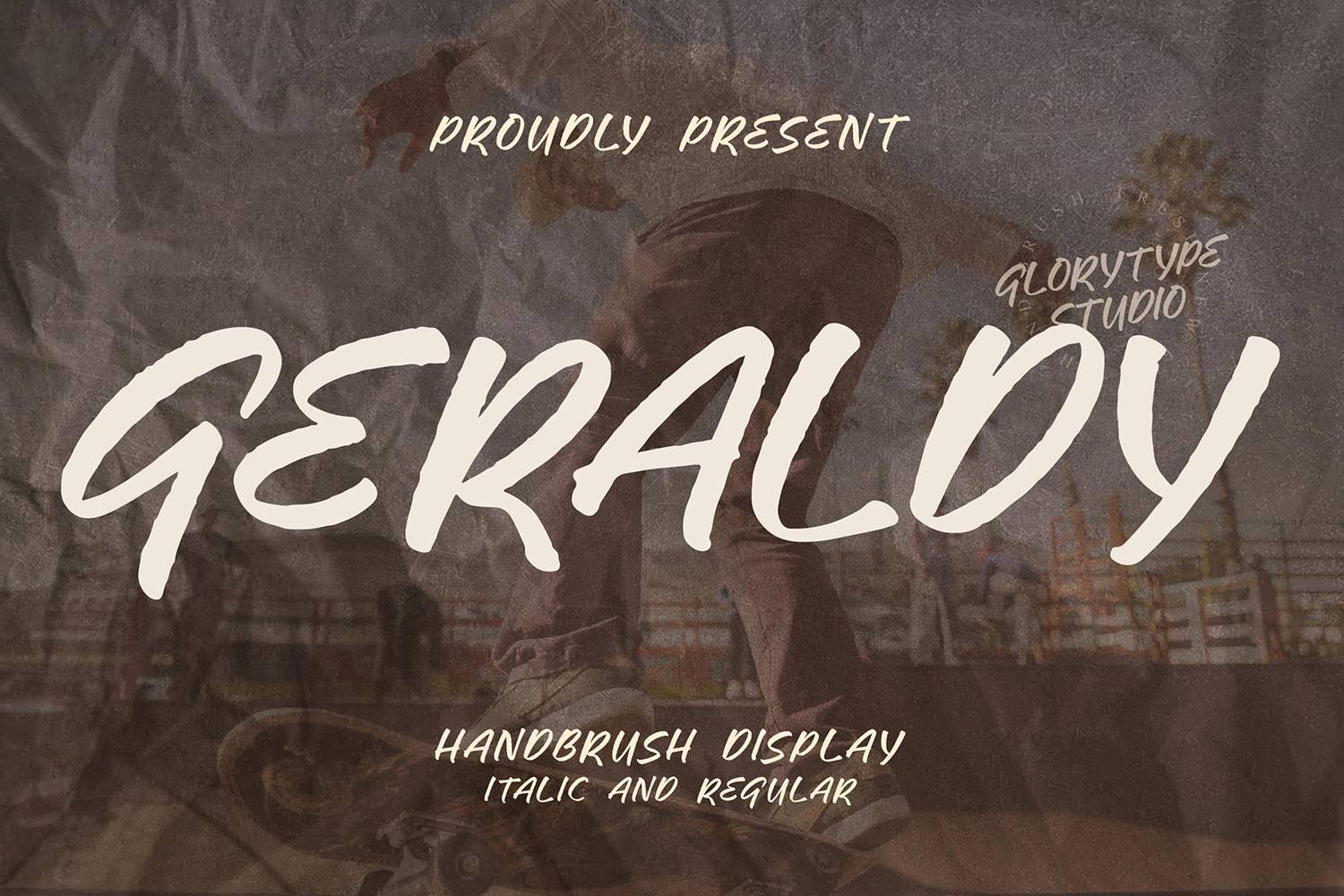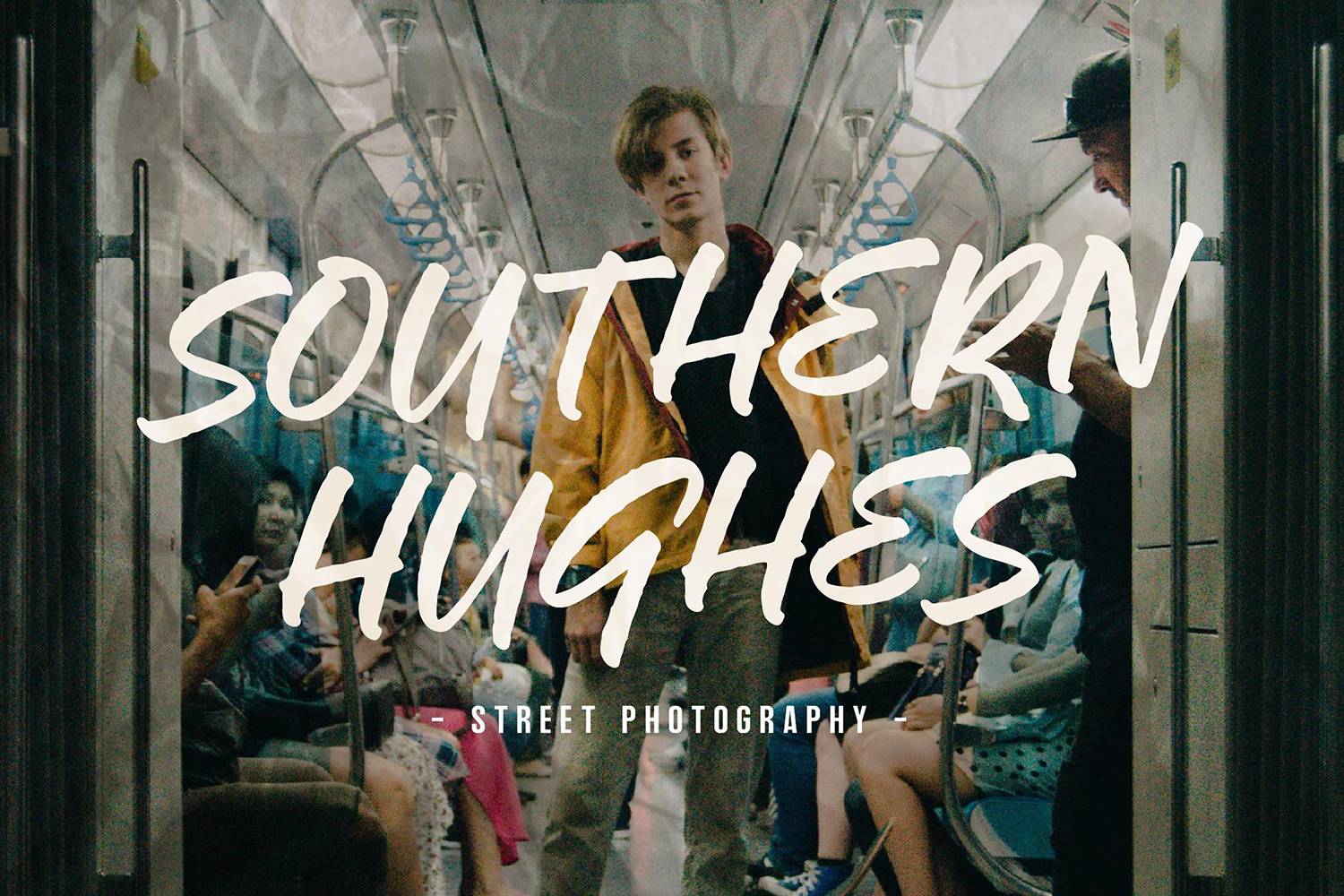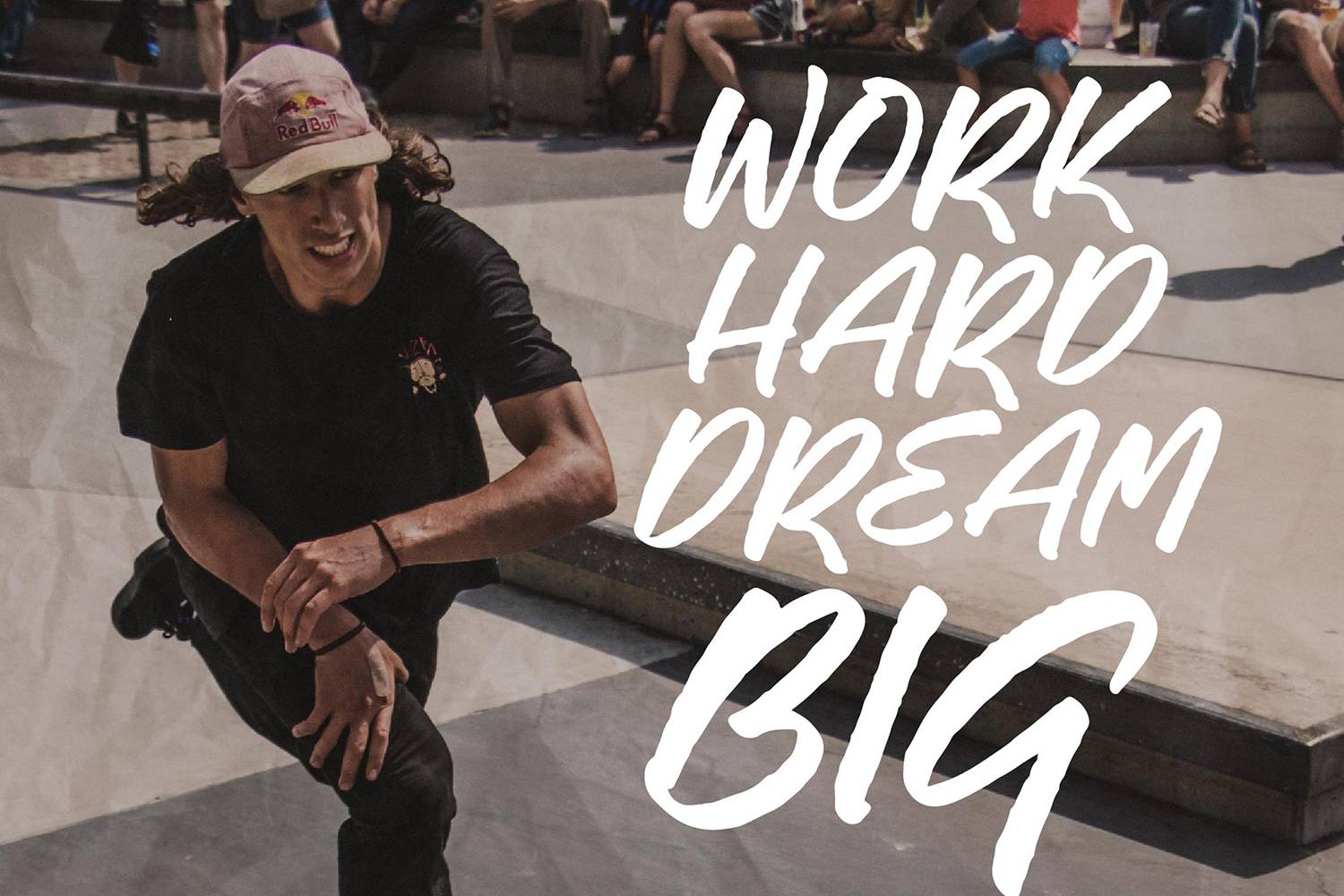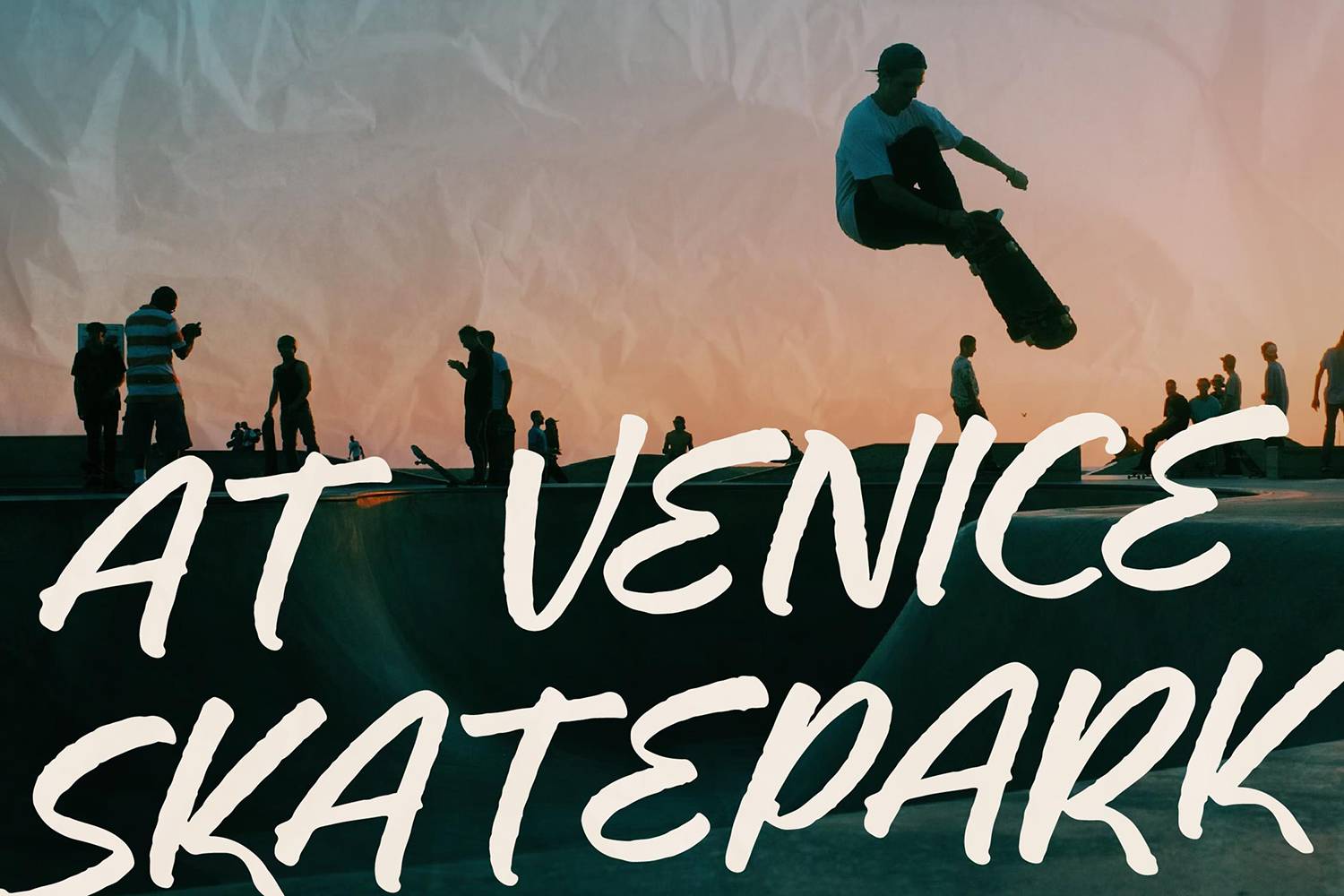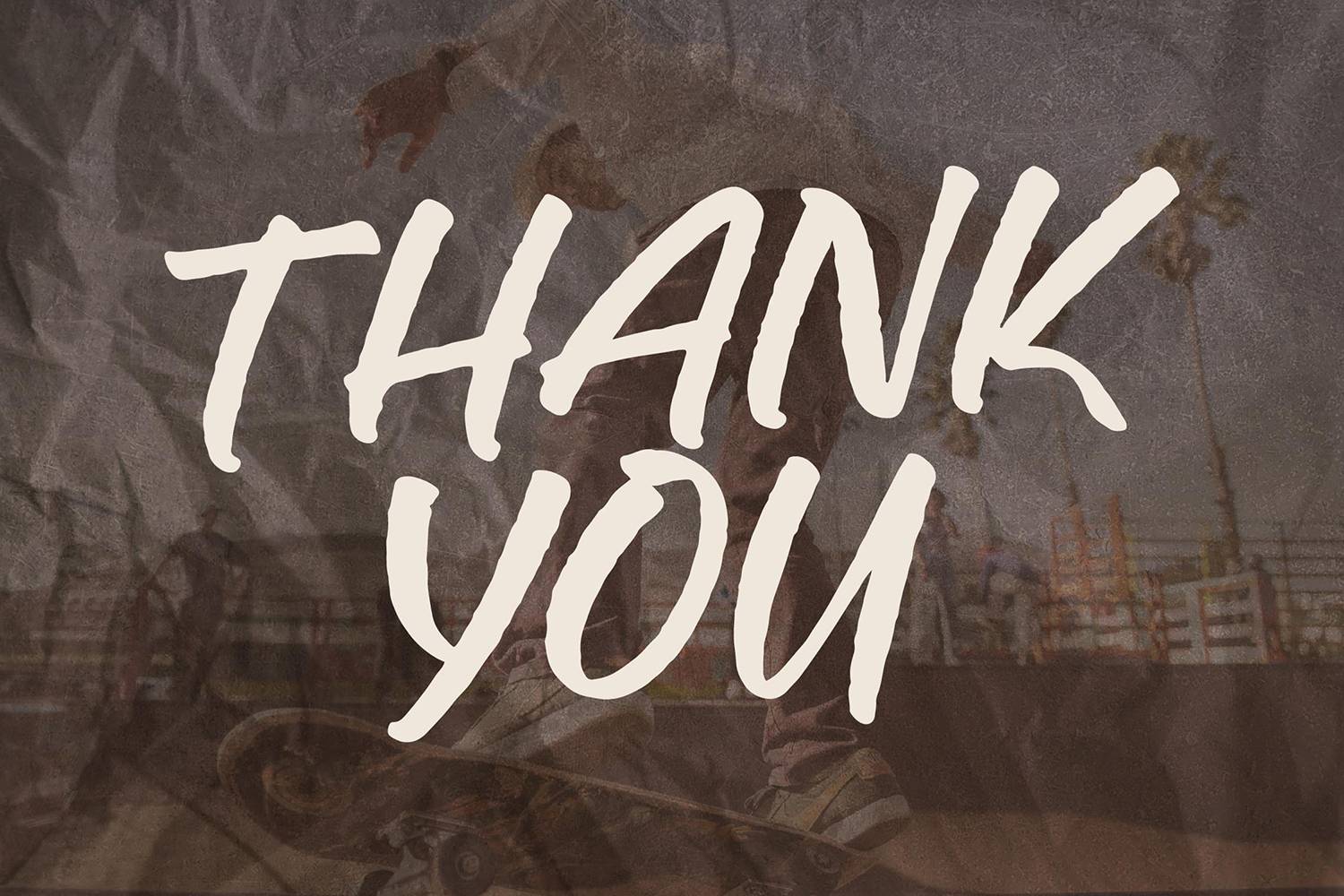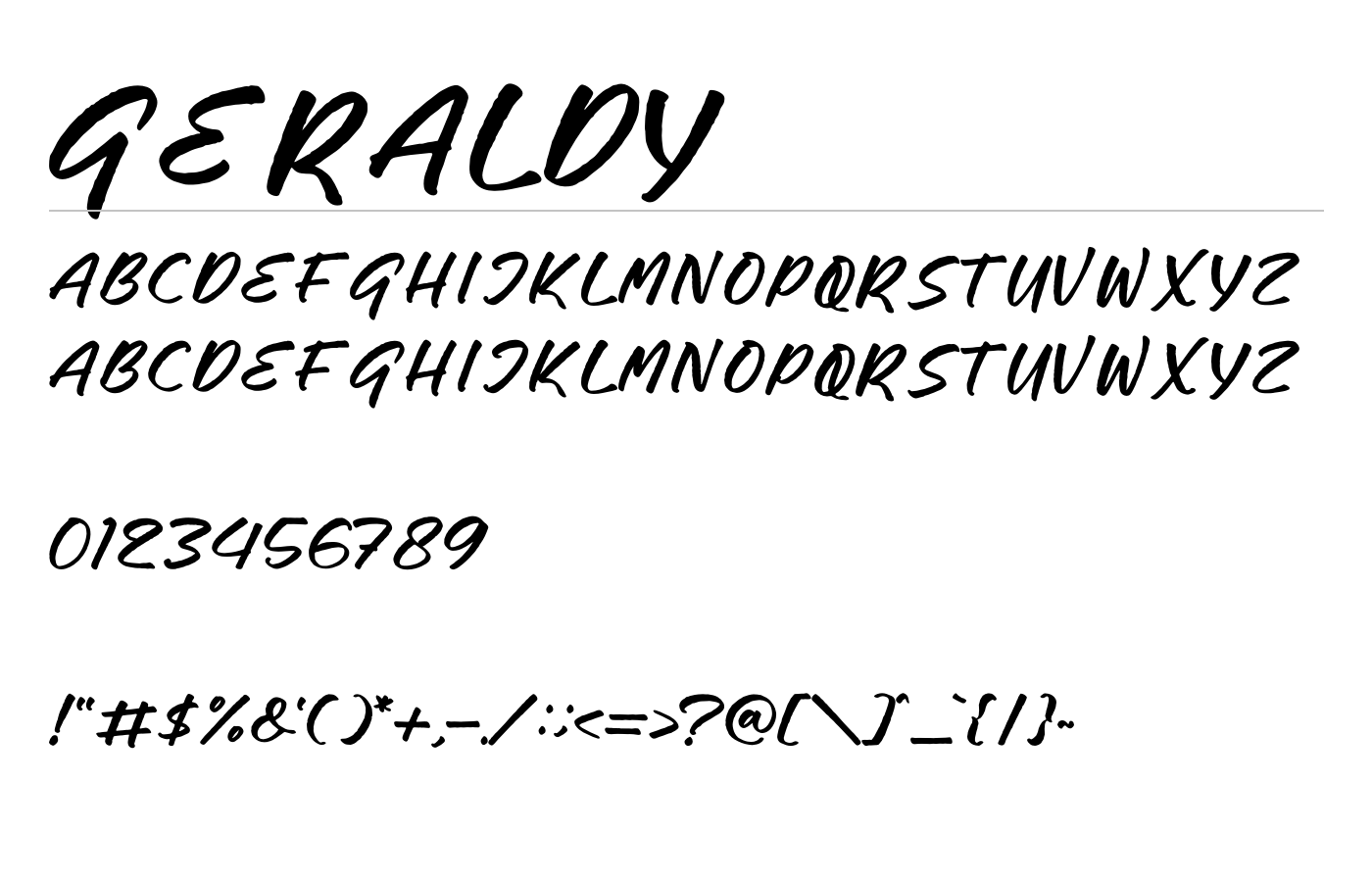
Geraldy is a lively, casual script font with a handwritten feel, featuring smooth, flowing strokes and a natural, slightly slanted style. It offers an energetic yet approachable personality, making it ideal for creative branding, informal invitations, and expressive headlines where a personal touch is desired. Its clear letterforms and balanced spacing ensure good readability while maintaining charm and spontaneity.
Geraldy Font
About Geraldy Font